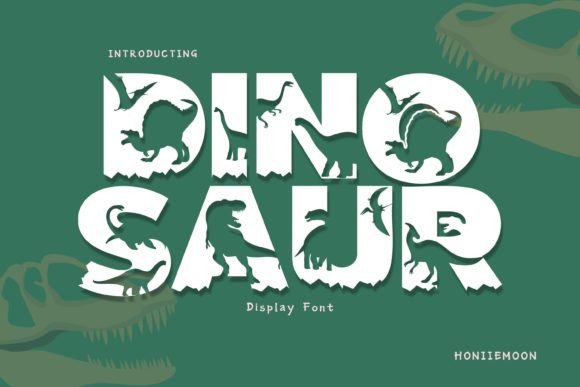
Looking for a fun and eye-catching display font to make your designs pop? Look no further than Dinosaur Font! Created by Honiiemoon, this playful and cool font is the perfect addition to any creative project.
With its cute and jolly appearance, Dinosaur Font is sure to catch the eye of anyone who sees it. But it's not just about looks - this font is also incredibly versatile and can be used in a wide variety of projects. Whether you're designing a website, creating a logo, or putting together a flyer, Dinosaur Font is the perfect choice.
One of the best things about Dinosaur Font is its PUA encoding. This means that you can easily access all of the glyphs and swashes, allowing you to create truly unique designs that stand out from the crowd.